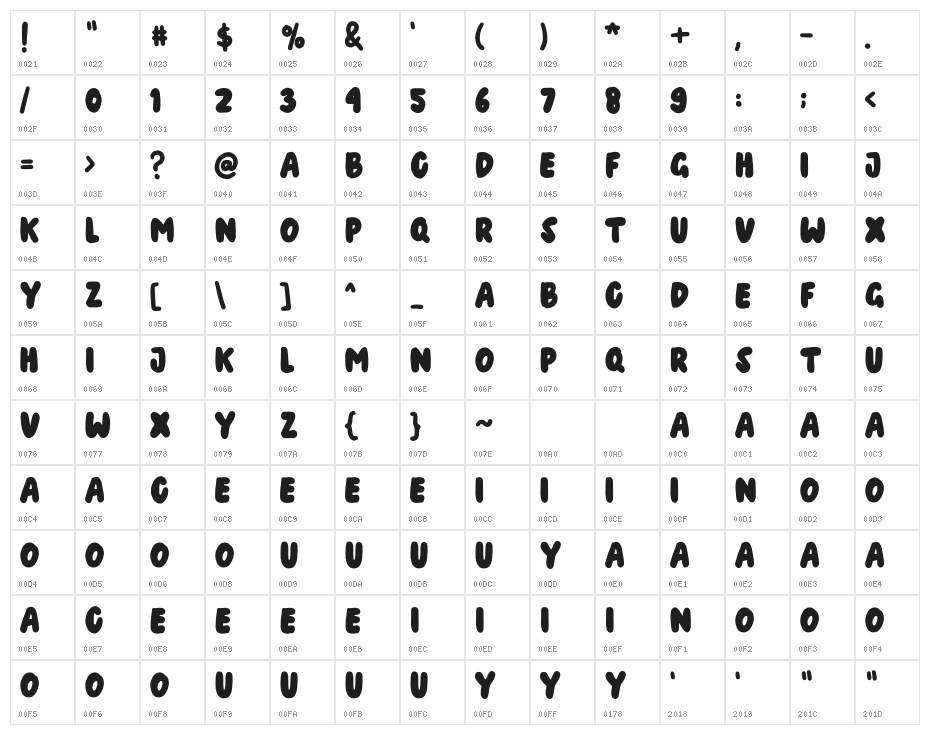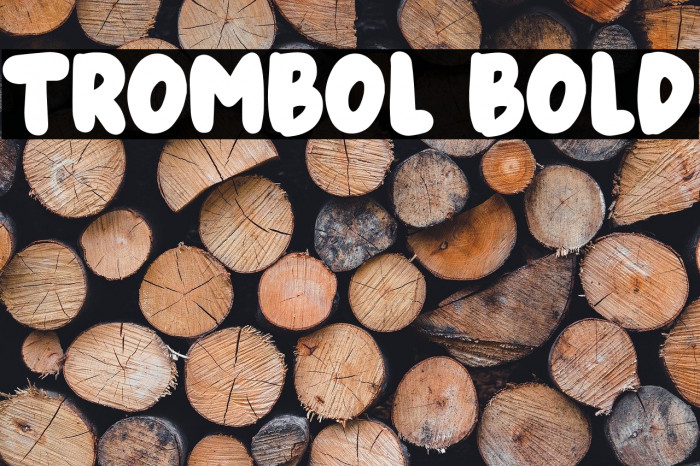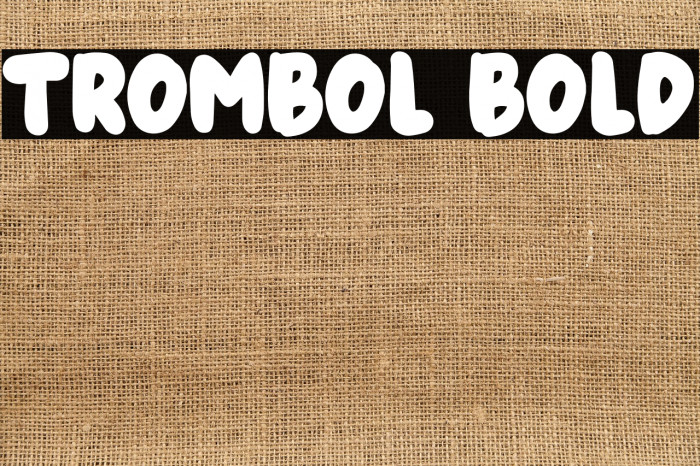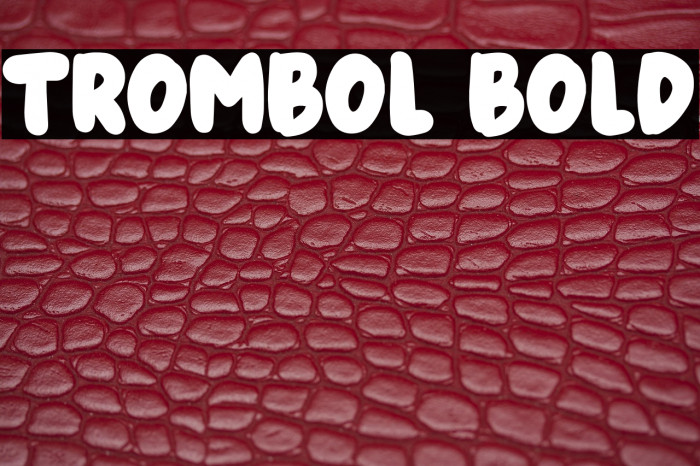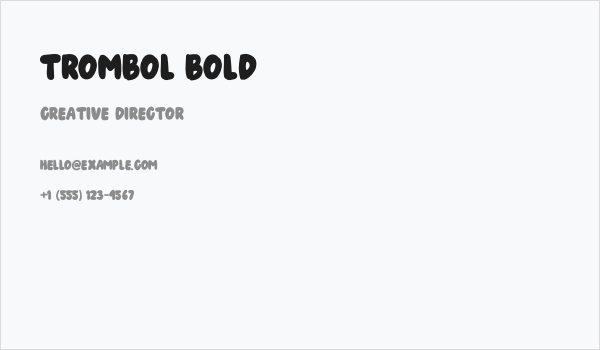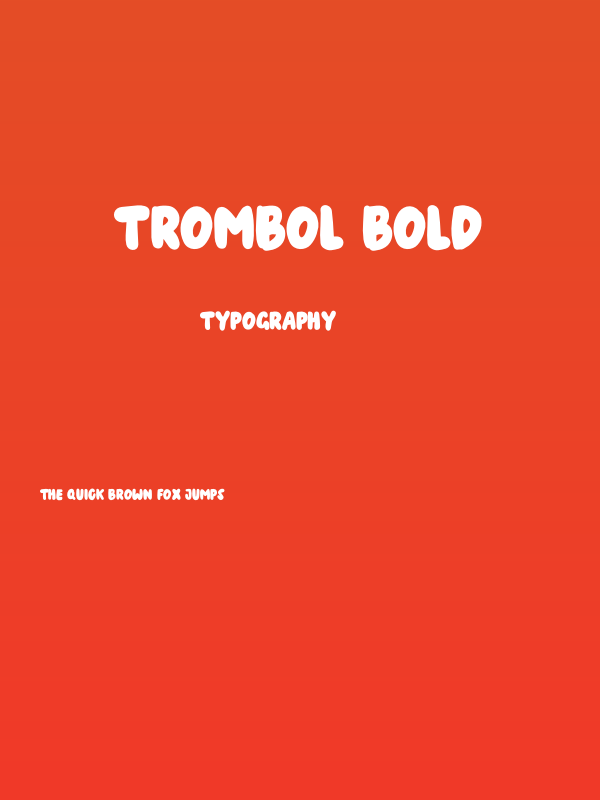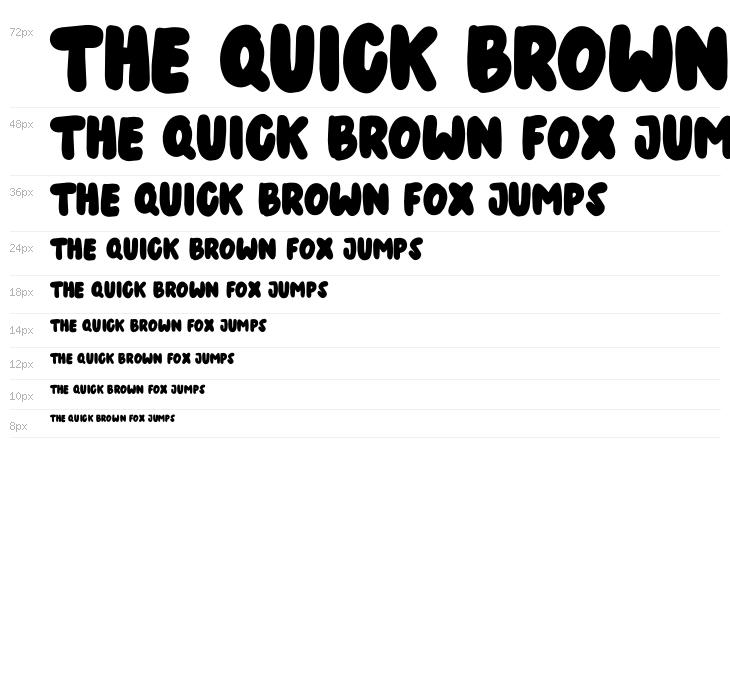
Trombol Bold Font
Trombol Bold Description
This font features a bold, playful style with rounded edges and a thick, uniform stroke. The characters are highly legible and have a friendly, approachable appearance. The uppercase and lowercase letters maintain a consistent weight, contributing to a cohesive look. The numbers and special characters are designed to match the playful aesthetic, making them suitable for a variety of creative applications. The overall design is modern and eye-catching, ideal for projects that require a strong visual impact.
| Proposed Projects | Ideal for children's books, playful branding, posters, and social media graphics. |